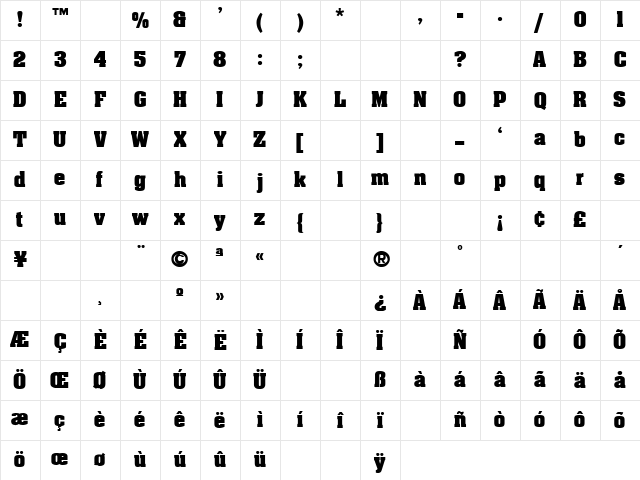
Drivebye 3 Regular
Design Context for Drivebye 3
Drivebye 3 is a composed and adaptable typeface that performs quietly and consistently across a wide range of design contexts.
Pro Tip: Use Drivebye 3 in both headline and body roles to test its range before committing to a single application.